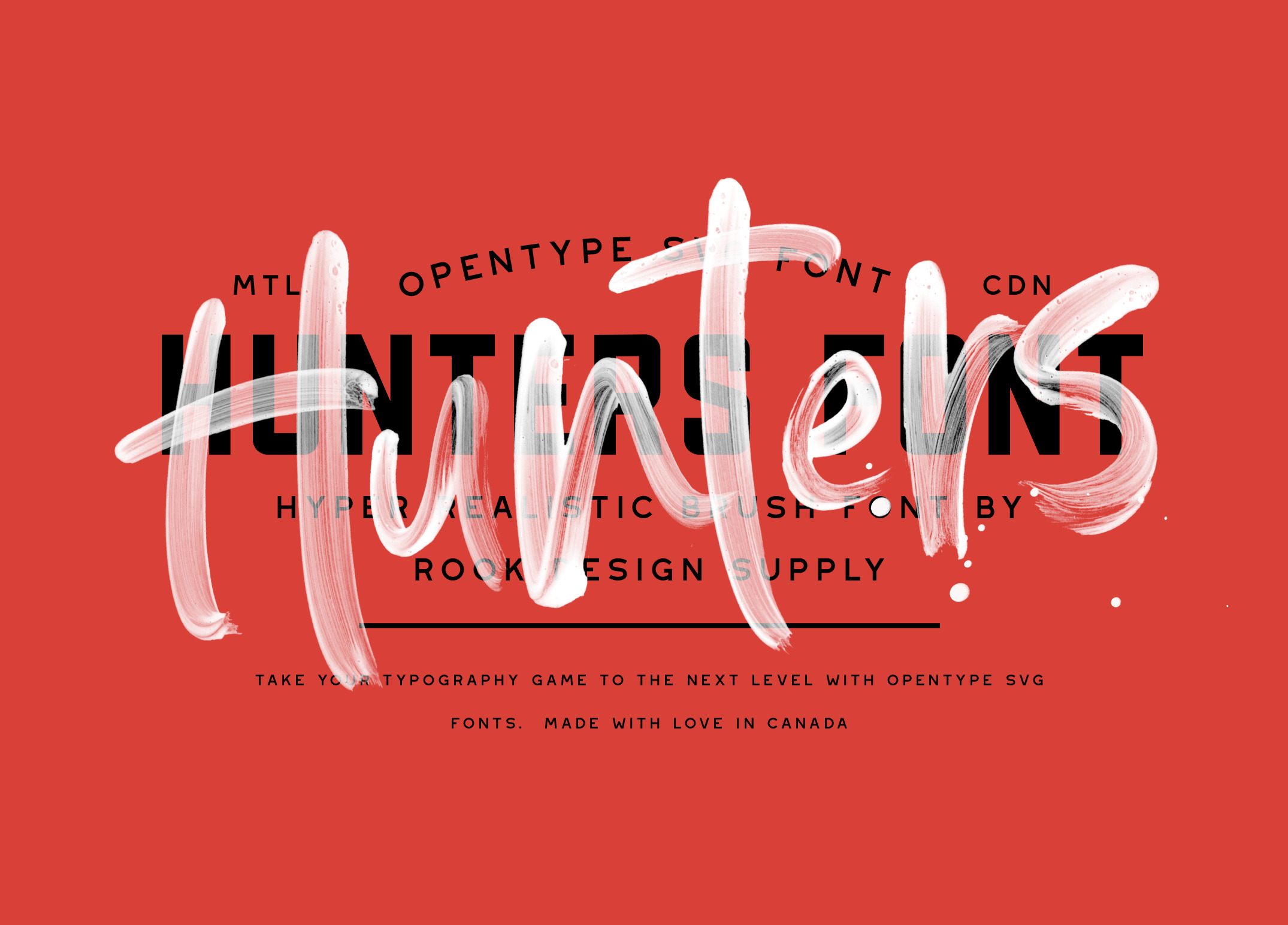
Hunters Opentype SVG Font
Take your design game to the next level with a hyper realistic font that truly looks hand painted. Hunters uses brand new font technology that makes way for more authentic looking fonts and is sure to grab the attention of customers and designers alike. Each letter was carefully painted dozens of times until deemed perfect, and then edited to get the texture absolutely perfect.
So how does it work? Instead of vectorizing the letters, Hunters uses actual images and transparency effects in order to get the quality that you see. This is all made possible thanks to the latest developments of the OpenType-SVG format, and the integration of that technology into Photoshop CC 2017.1.1 and Illustrator CC 2018. Hunters installs like any other font, and can be used in any color, on any background. Check out the example video to see everything this font can do!